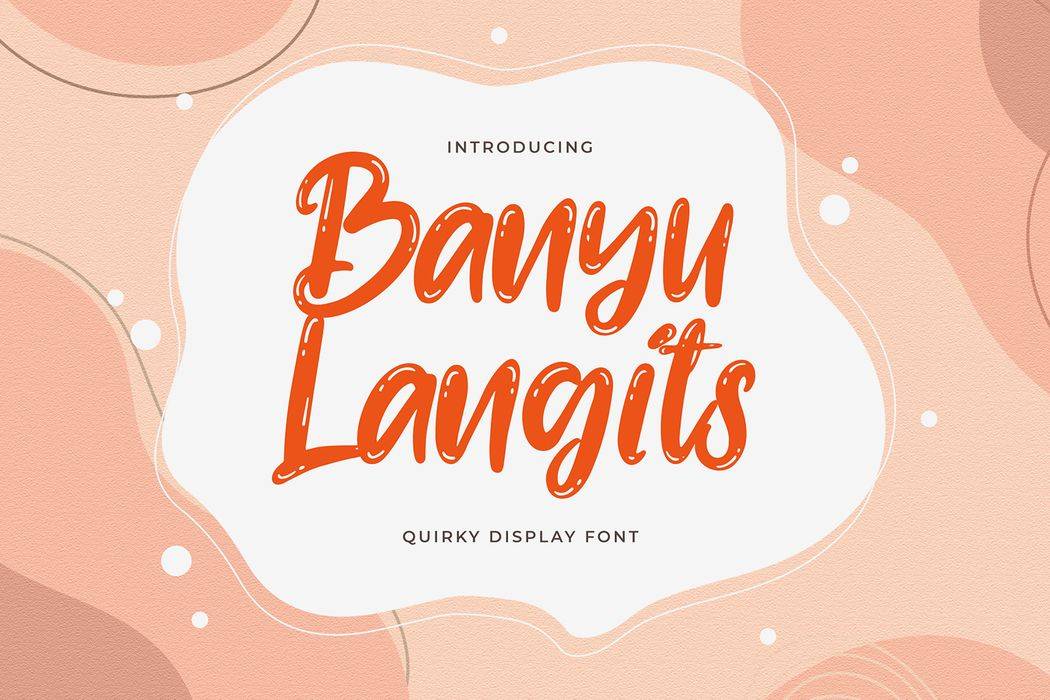
Banyu Langits is a lively and expressive script font with a hand-painted feel, featuring bold, slightly textured strokes and a casual, friendly rhythm. Its dynamic letterforms, including single-story ‘a’ and ‘g,’ and smooth curves make it perfect for creative projects, branding, or invitations that seek a personal, artistic touch. This font works best in headlines and display uses where its energetic personality can truly stand out.
Banyu Langits Font
About Banyu Langits Font